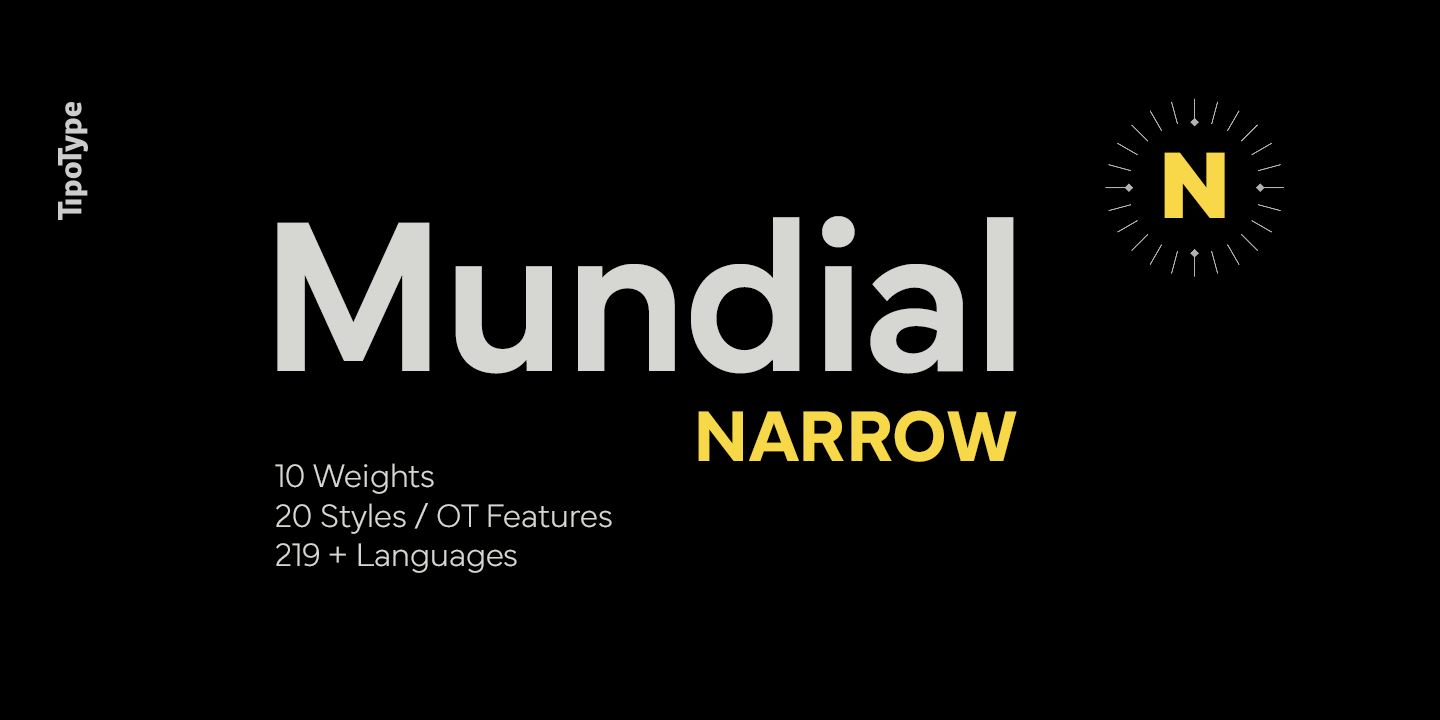
Mundial Narrow Font Free Download is a sleek and narrow sans-serif typeface that delivers a modern and professional appearance. Its condensed form is perfect for saving space without sacrificing readability, making it ideal for headlines, branding, and editorial design.
With its clean lines and geometric precision, Mundial Narrow Font Free Download enhances your designs with a sharp, sophisticated touch. This font is highly versatile and works well in both print and digital formats.
Elevate your projects with the sharp and efficient style of Mundial Narrow Font Free Download. If you’re seeking a font that combines narrow design with high impact, Mundial Narrow is an excellent choice.